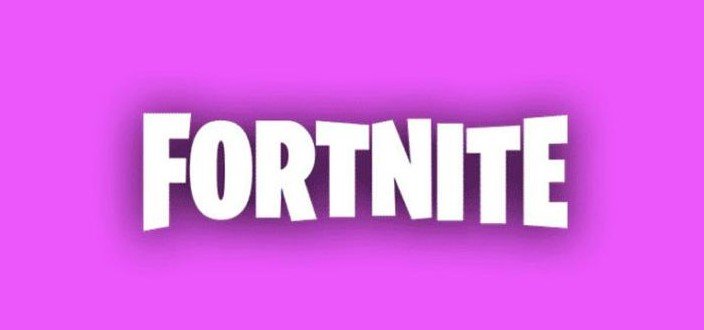
The typeface contains 20 different, unique and stylish styles. Also, it has bold letters and characters including uppercase and lowercases.
If you want to get stylish and unique typeface to make your designs easily different and stylish. So, for this we are going to introduce Fortnite Font. The font will boost the attractiveness of your designs.
The typeface contains 20 different, unique and stylish styles. Also, it has bold letters and characters including uppercase and lowercases.
Modern, and popular typeface makes your designs super beautiful and super classy. It has bright contrast texture and elegant look that makes it perfect for every designs.
The Splatch by imagex. is very close to the Fortnite font.